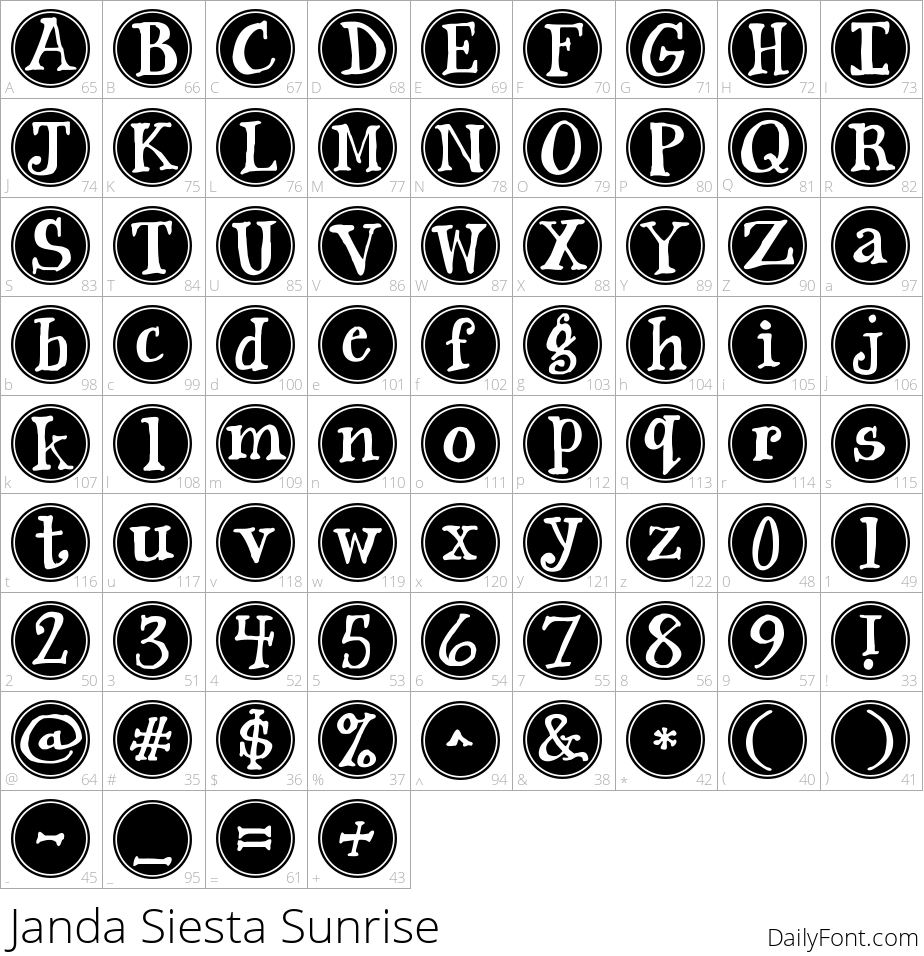
Janda Siesta Sunrise
Looking for a charming, hand-crafted font that exudes warmth and playfulness? Search no further! You're probably seeking a font with a laid-back, beachy vibe, reminiscent of sunny mornings spent soaking up the rays.
You'll want a font that's got character, with imperfectly rounded edges and whimsical details that give it a personal touch. The kind of font that says "relaxed" and "fun", perfect for branding a surf shop, boutique hotel, or summer-themed website.
A font like this should have two distinct styles to offer flexibility: one more casual and cursive-like, ideal for headings or titles; the other more straightforward and legible, suitable for body text. The overall aesthetic should evoke a sense of carefree nostalgia, with a dash of modern flair.
If you're on the hunt for a font that's as fun as it is functional, look no further than this charming hand-drawn typeface. With its unique blend of playfulness and approachability, it's sure to be a hit with designers and users alike.